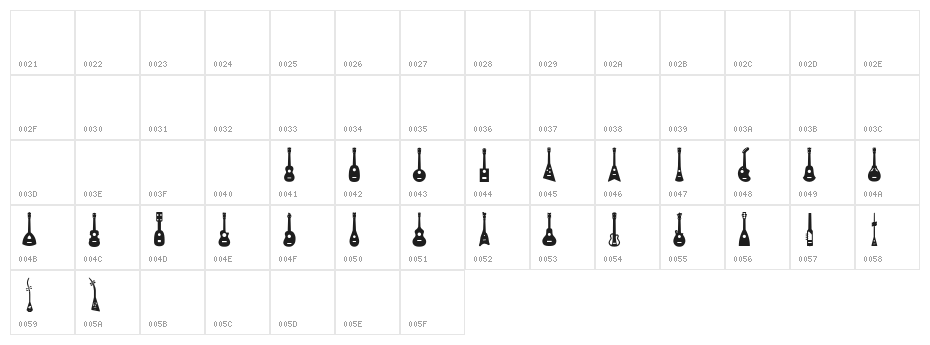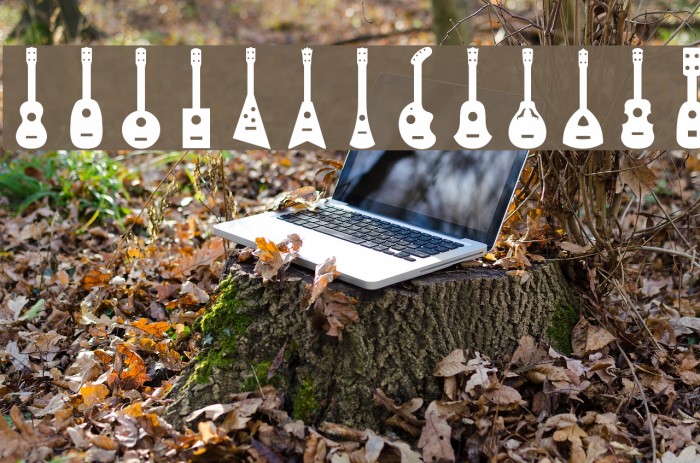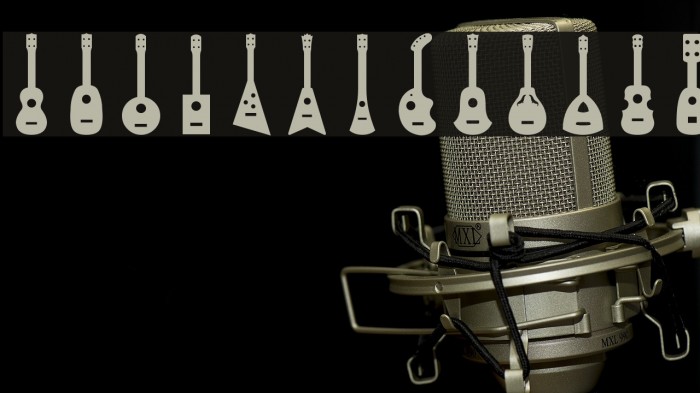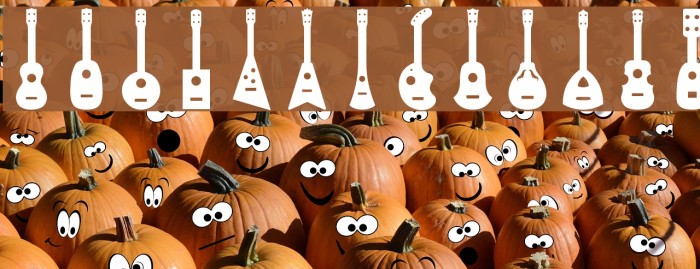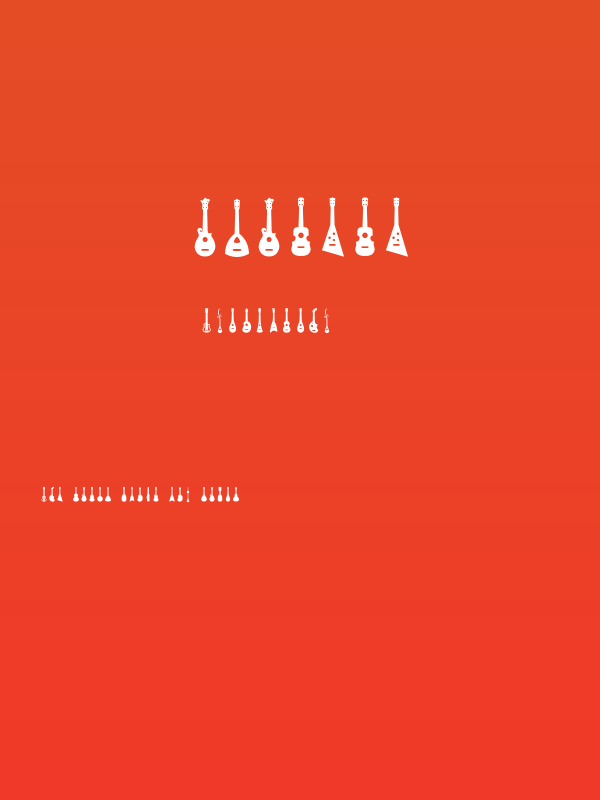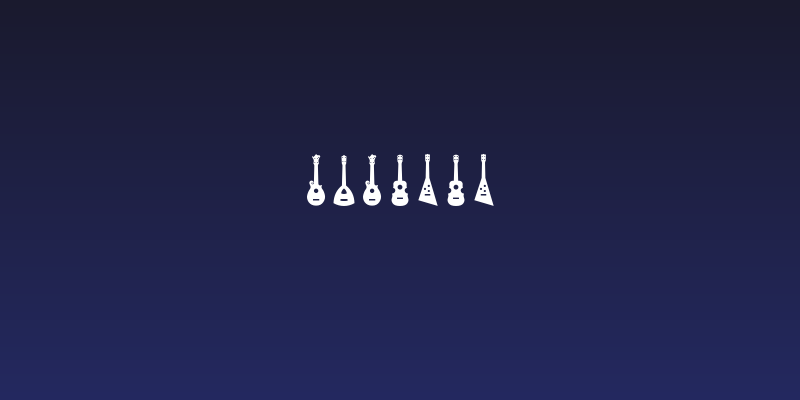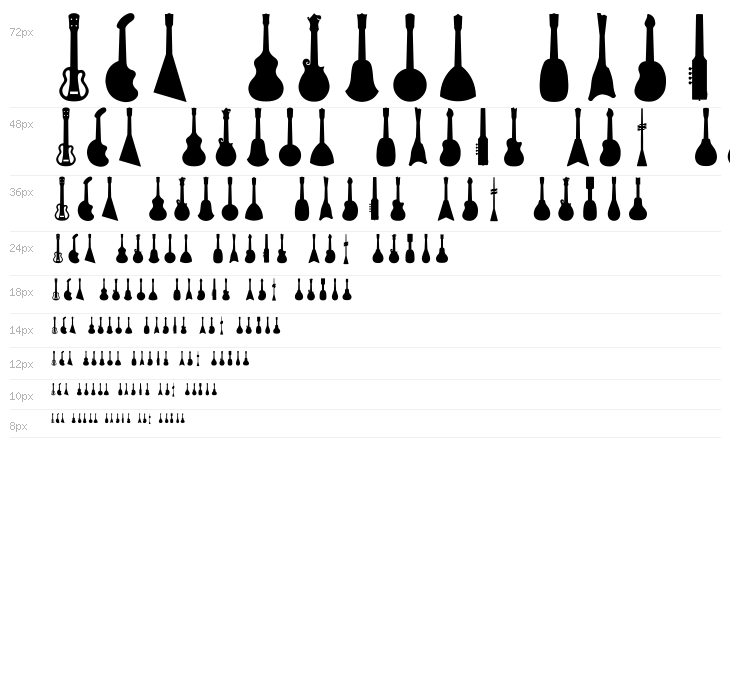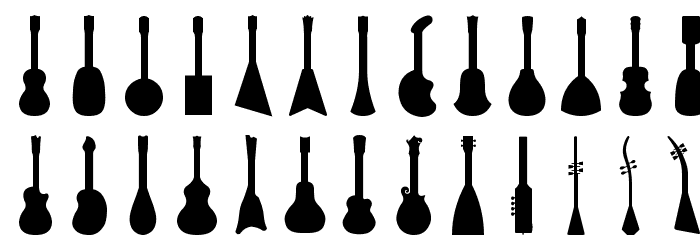
Ukulele Font
Ukulele Description
A collection of black silhouette icons representing various stringed instruments, each with unique body shapes and necks, arranged in a grid. The icons are bold, solid, and highly stylized, lacking fine detail and focusing on recognizable outlines.
| Overall Style | Decorative, Modern, Playful |
| Use Case | Icons, Logos, Themed Illustrations, Posters |
| Proposed Projects | Music posters, educational materials, infographics, app icons, themed event graphics. |